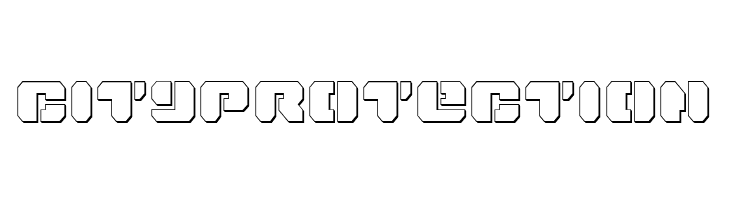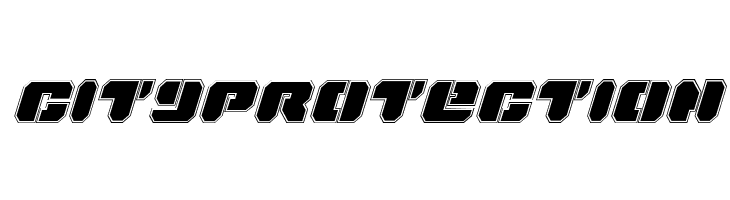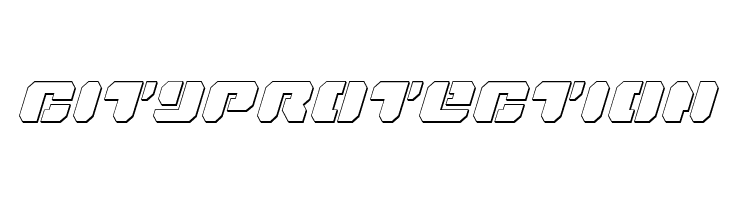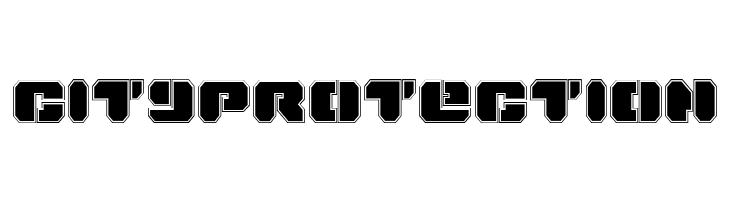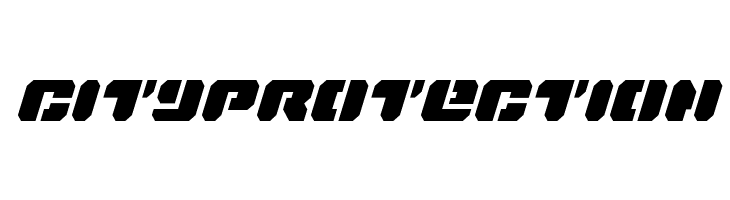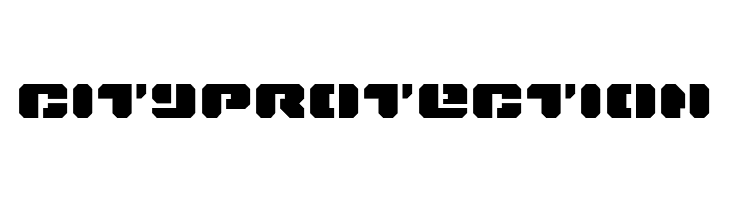
Blitzstrike Condensed Font
- Font: Blitzstrike Condensed
A futuristic, geometric outline font with bold, angular shapes.
Futuristic, bold italic font with a three-dimensional outline.
A futuristic, geometric outline font with an italic slant and bold, angular lines.
A bold, extra-expanded, italic font with a futuristic and dynamic style.
A bold, futuristic font with a geometric, sci-fi inspired design.
A bold, futuristic italic font with sharp angles and geometric shapes.
A modern, geometric font with a futuristic and minimalistic style.